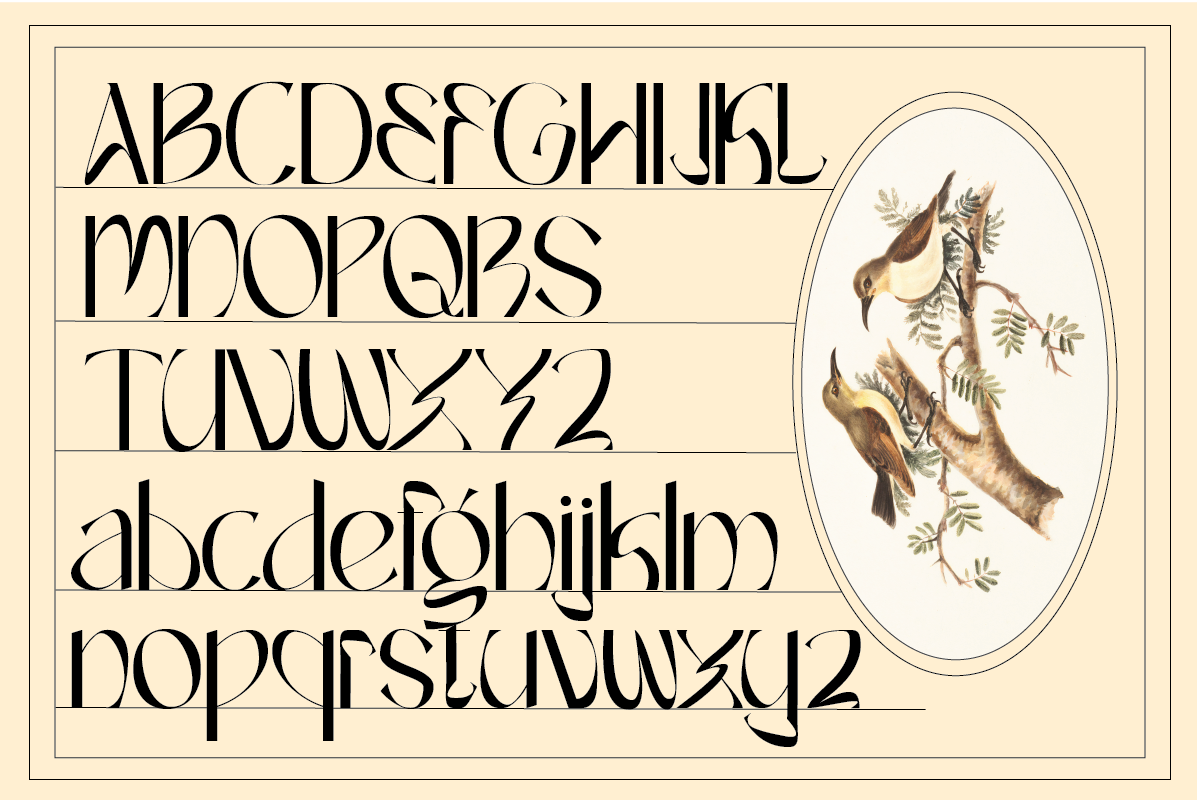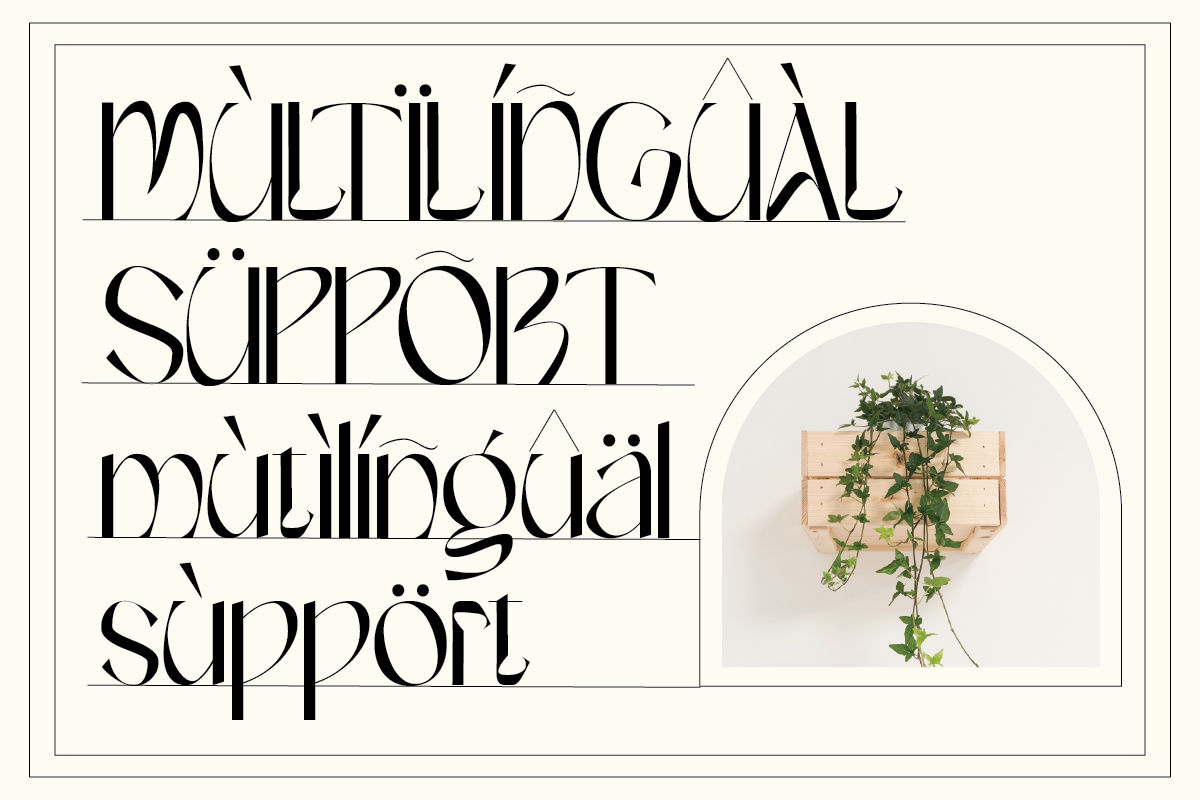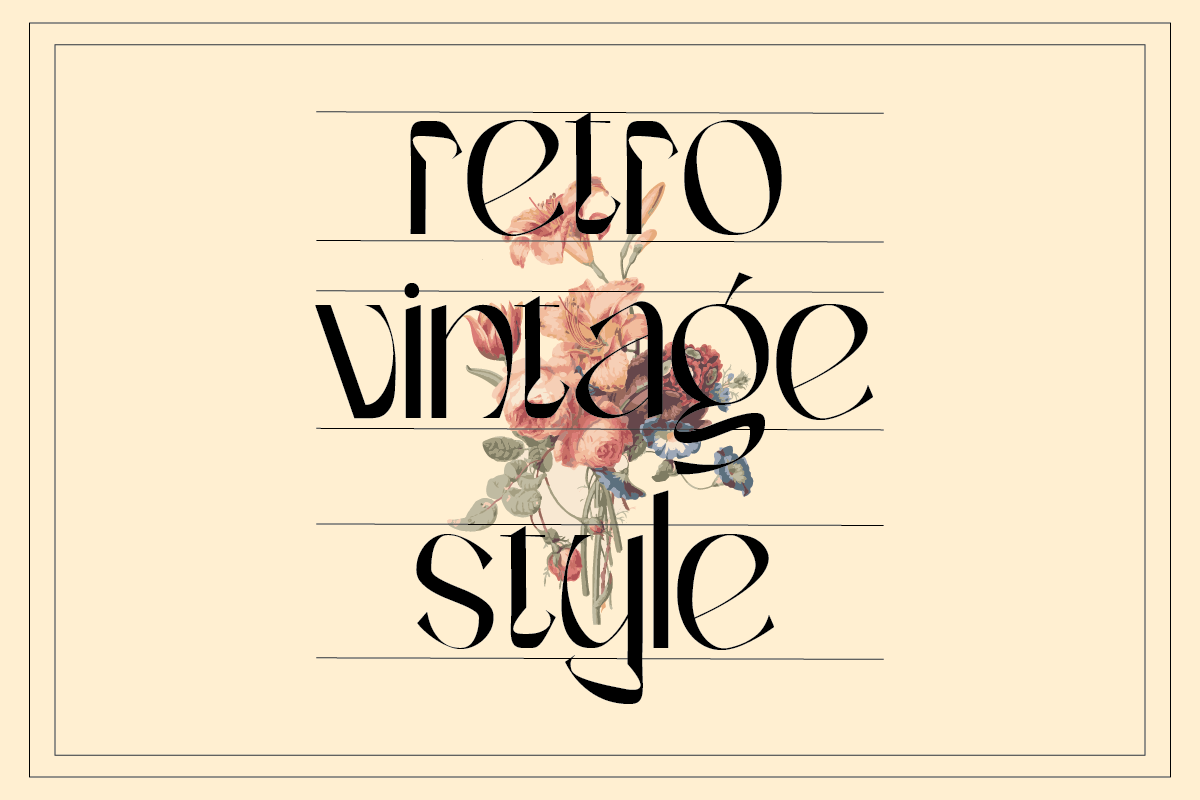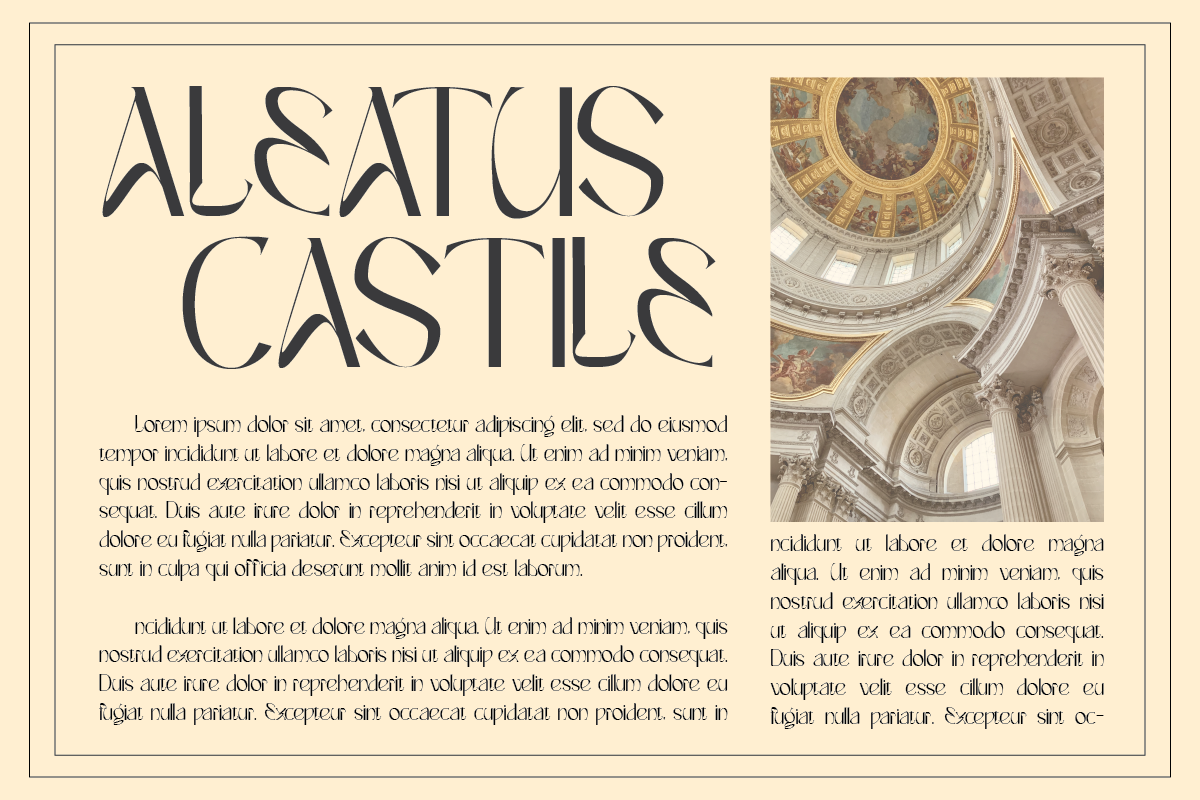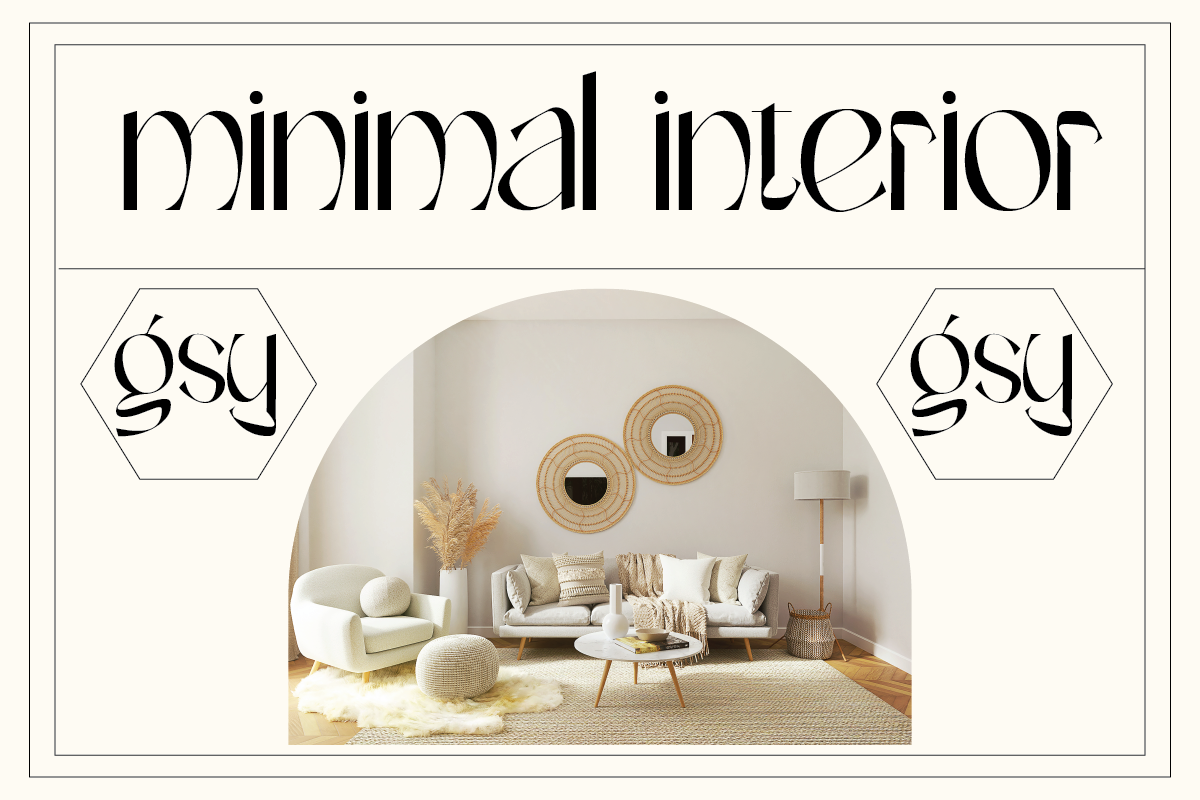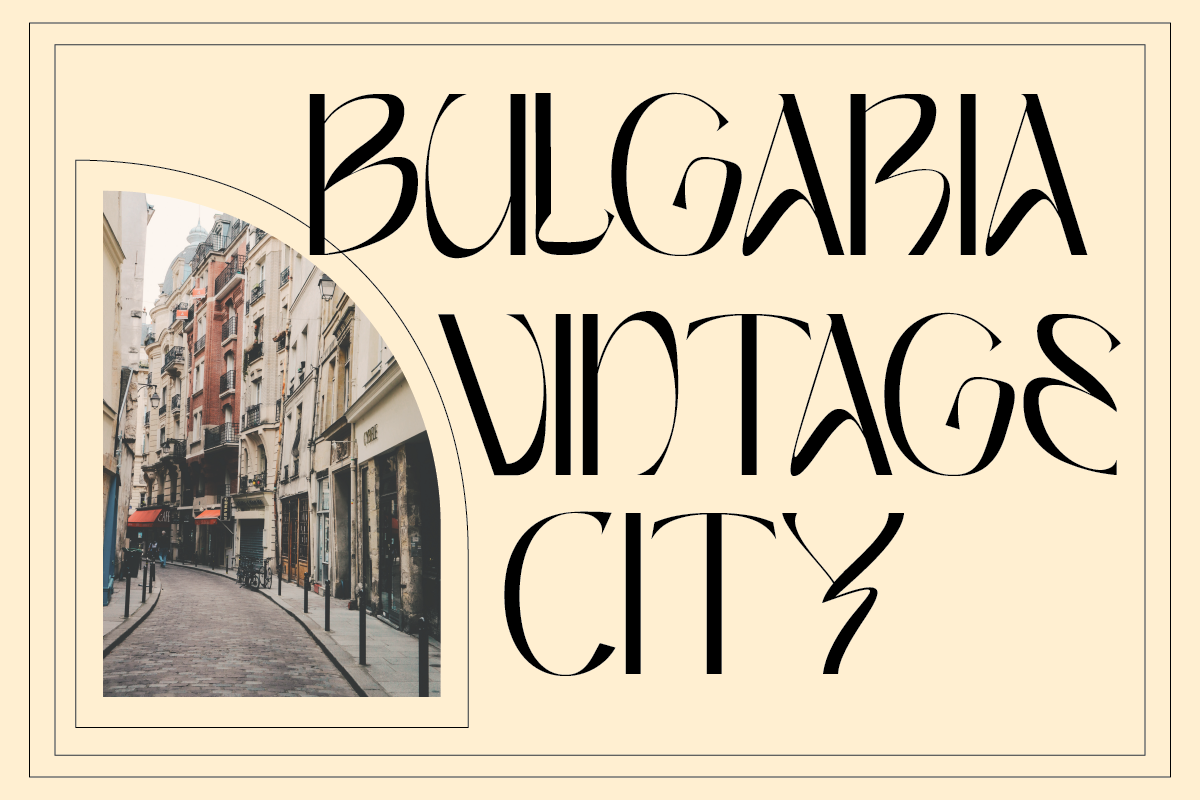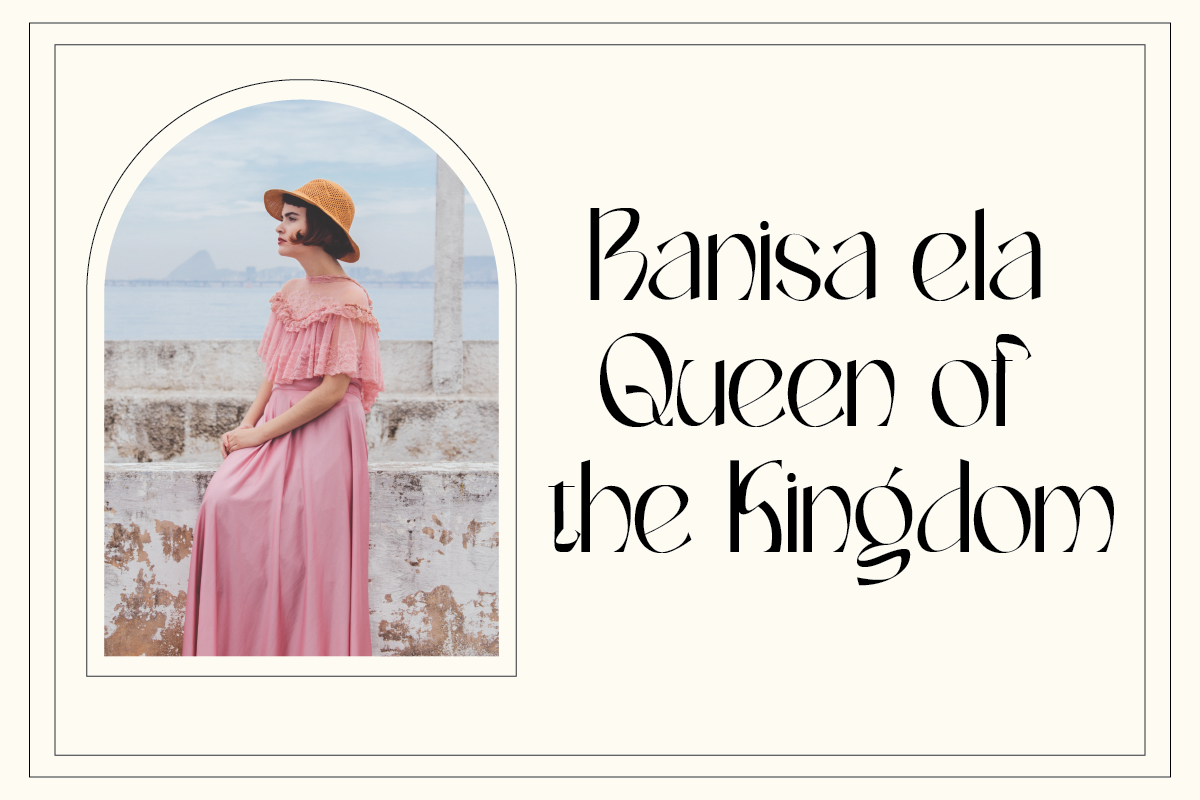
Farech
Farech is modern Display Vintage font, and Farech features unique and modern Display Vintage look and feel.is a fancy and Display Vintage font will elevate a wide variety of projects, from logos and stationery to magazine covers and social media posts. This typeface will take your designs to the next level!